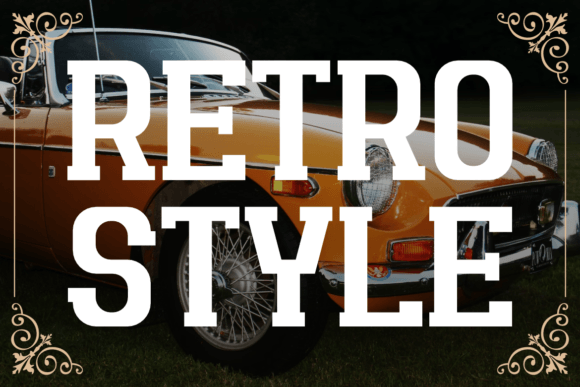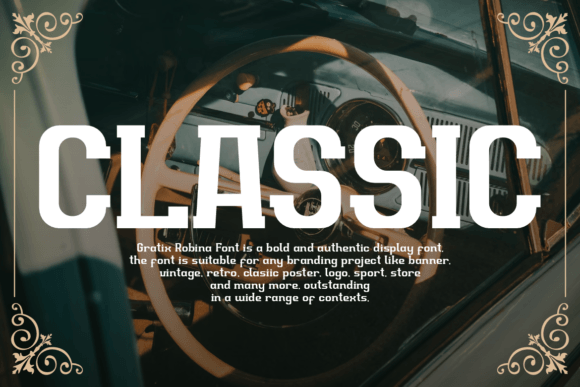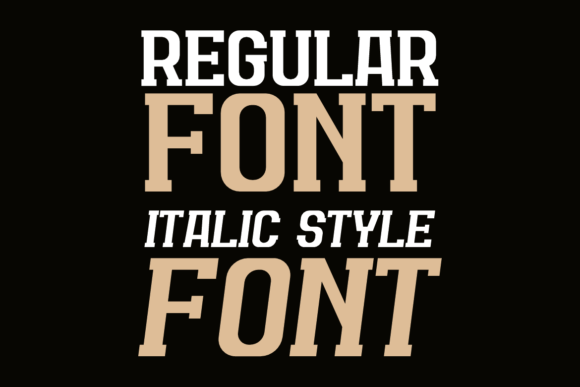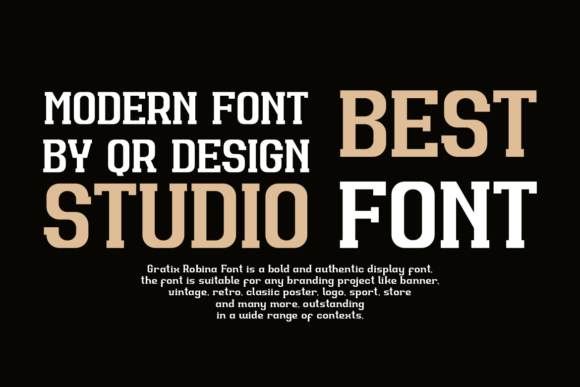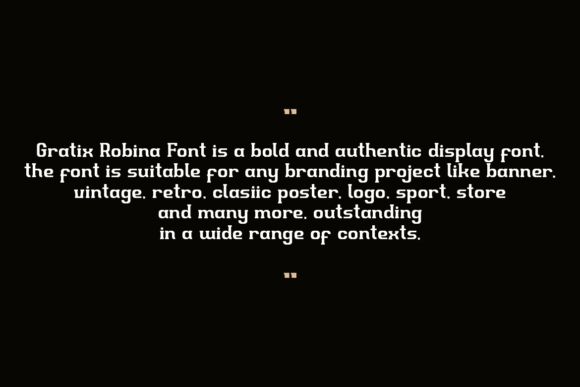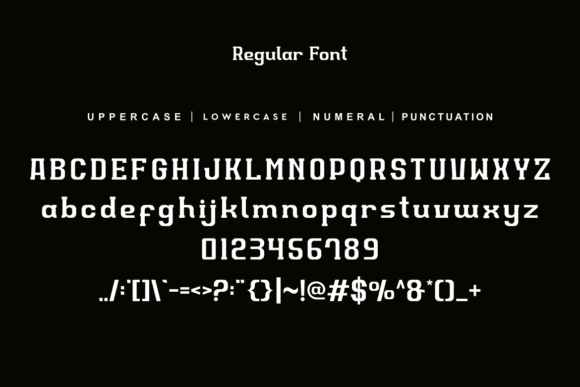
The Hunt for the Perfect Font: How Gratix Robina Stole My Heart
I still remember the countless hours I spent searching for the ideal font for a client’s retro-themed sports brand. The brief was simple: bold, authentic, and eye-catching. Sounds easy, right? Wrong! I scoured font libraries, tried out dozens of options, but nothing seemed quite right. That was until I stumbled upon Gratix Robina, a bold and authentic serif font that instantly caught my attention.
First Impressions: A Love Affair with Gratix Robina
As soon as I opened Gratix Robina in my design software, I knew I had found something special. The font’s bold, chunky letters seemed to scream “retro” and “vintage,” making it perfect for my client’s project. But it’s not just about looks – Gratix Robina is also incredibly versatile, making it suitable for a wide range of branding projects, from posters and logos to classic and sporty designs.
What I Love About Gratix Robina
- ✨ Bold and authentic: Gratix Robina’s serif design gives it a classic, timeless feel that’s perfect for retro and vintage projects.
- ✅ Highly legible: Even at smaller sizes, Gratix Robina remains clear and easy to read, making it perfect for body text and headings.
- 🎉 Versatile: From posters and logos to sports and classic designs, Gratix Robina can adapt to any style or theme.
While Gratix Robina is an amazing font, it’s not without its quirks. For example:
- 🤔 Limited OpenType features: While Gratix Robina has some great OpenType features, it’s not as extensive as some other fonts on the market.
- ⚠️ May not be suitable for very small text: While Gratix Robina is generally legible, it may not be the best choice for very small text or captions.
The Story Behind Gratix Robina
Gratix Robina was designed with the goal of creating a bold, authentic serif font that would evoke a sense of nostalgia and timelessness. The font’s designer drew inspiration from classic sports typography and vintage advertising, resulting in a font that’s both retro and modern.
Q: What type of projects is Gratix Robina best suited for?
A: Gratix Robina is perfect for retro, vintage, poster, classic, logo, sports, and many more branding projects.
Q: Is Gratix Robina easy to read?
A: Yes, Gratix Robina is highly legible, even at smaller sizes, making it perfect for body text and headings.
Q: Does Gratix Robina have any OpenType features?
A: Yes, Gratix Robina has some great OpenType features, including Stylistic Alternates and Glyphs, which can add some extra flair to your design.